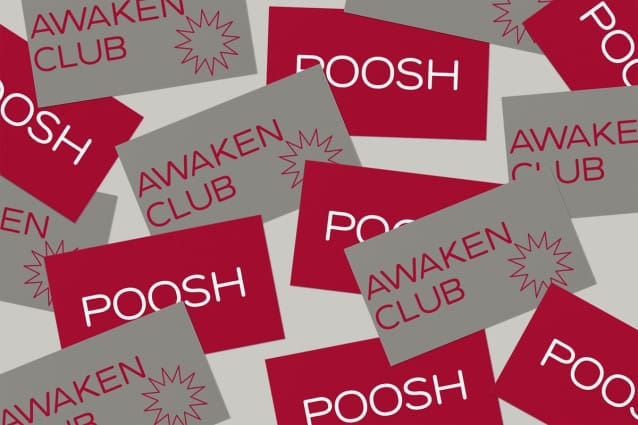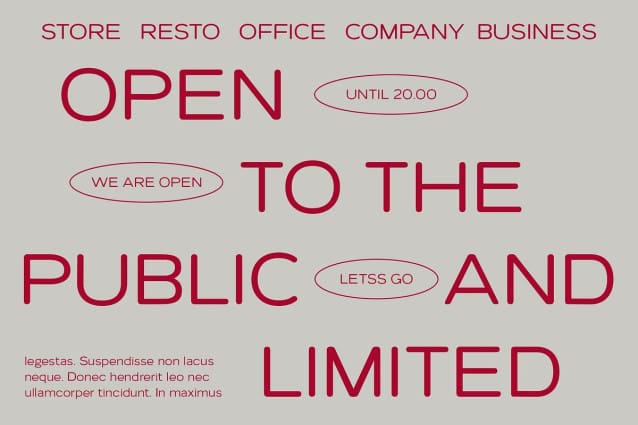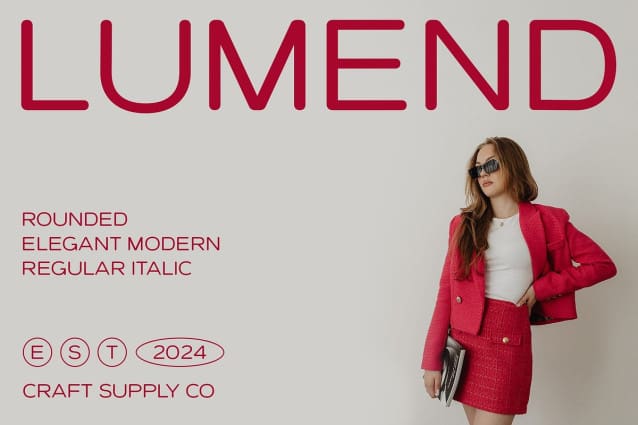
Lumend Rounded Font
Lumend Rounded Font: Soft and Approachable Sans Serif. Gentle Curves, Low Contrast Lumend Rounded features rounded stem terminals and a low-contrast sans serif design, exuding a soft and approachable aesthetic.
Contemporary Appeal With its rounded edges and subtle contrast, This font offers a modern twist on classic sans serif typography, appealing to contemporary design sensibilities.
Versatile and Friendly Ideal for a wide range of applications, This font low-contrast and rounded terminals lend a friendly and versatile vibe to branding, editorial, and digital projects.
Effortlessly Legible Despite its rounded features, This font maintains excellent legibility, ensuring clear communication across various mediums and contexts.
Soft, Modern, and Versatile This font presents a harmonious blend of softness and modernity. Its rounded terminals and low-contrast design make it an excellent choice for projects requiring a friendly and approachable sans serif typeface, without sacrificing readability or versatility.